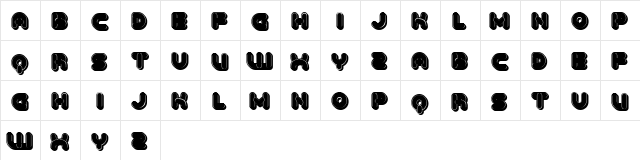
Baked Snails 3D Flat Regular
Design Context for Baked Snails 3D Flat Typeface
Baked Snails 3D Flat is a composed and adaptable typeface that performs quietly and consistently across a wide range of design contexts.